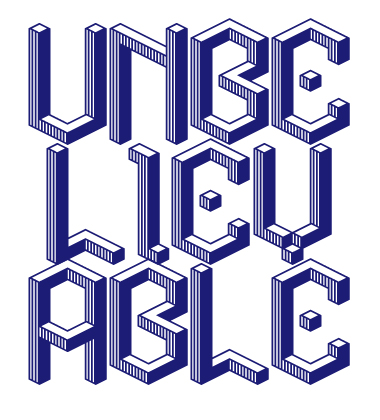
This is my homage to the late Dutch master. I tried to capture the impossible geometry, sense of space, and even the colours of his works. You can see and download the new v2 here:
I've been working on this project since 21st July. It is still not complete: capitals and other characters are missing. But I couldn't wait any longer. I was also hampered by technical issues. No download possible at the moment, lost a few hours work several times after a failed saving attempt. Thus, I've made the decision to share this work as it is, and iron out the problems later.
There will be many twists and turns on the road to Upper Case, but you have set out on a noble path. You have done well halfling.
There are many fonts I've held back so that others could share their creations. It was something I decided after hearing that some wouldn't have shared their designs after seeing mine. Throughout the process, I've played a little game of "When is someone going to come up with this?" in regards to public releases compared to my private stash. Uncannily, within the last two months, there have been about ten fontstructions by different fontstructors that similarly match what I have unreleased, ranging from the simple to the most complex. It's an interesting thing to see. Everyone's been doing great work. I'll be sharing these typefaces soon. Your design is the most unexpected I would think to find here. Shocking, really.
This sample is from IsoMatrix, fontstructed in June, 2008.
@ geneus - i was just thinking with all this escher-inspired work being released that i'm sure geneus could do a killer interpretation. i wait with baited breath :)
@djnippa: g was not easy. I had to increase the descender to accommodate it. The 8 is a different story. All I wanted to avoid the overused symmetrical version I could have created offhand. But I was not sure others would like it as much as I do.
@p2pnut: &, $ are third and fouth generation glyphs respectively. That means I deemed the previous versions unworthy to include in this first release. My favourite is the * (asterisk). The ß (eszett) also came out very nicely. It preserves the fusion of the long s and a lower case roman s.
The ø from the Danish and Norwegian alphabet gives a new dimension to the stroke.
@geneus1: Well, I don't know what to say. IsoMatrix has an apparent resemblance to my letters, especially the upper case. I have already finished the sketches of those too, and
I'm not going to change them just for the sake to be different. But the full history of this Escher-inspired design goes back to June 2003. Shortly after I saw the book "The Magic of M.C. Escher", the Belvedere, Man with Cuboid, and Waterfall in it, I started to do some drawings of 3D letterforms using cubes as pixels. But I made only a few letters back then. A couple of years later I started to work on this project again, and developed the optimal x-height to avoid the common hexagonal look of the rounded letters. I used Illustrator and simple colours for the different sides, but I could not convert the glyphs to B&W to make them acceptable to the font editor (TypeTool). The advent of FS suddenly opened up new possibilities. It was actually one of your works, Bevelicious, (and Bevel by minimum) that inspired me the most showing what FS was really capable of in the right hands. Had you published IsoMatrix before, it might have discouraged me to work on a similar project. It also might have had a strong influence on my work, too strong perhaps. On the other hand I should thank you for the inspiration of Bevelicious, and you should thank minimum for sharing Bevel with the FS community. Personally, I don't think that having a completed work in the drawer is of much use. It is as if it never existed. And consider the ephemeral lifespan of the average font. So, publish or perish, as the saying goes.
I wonder, why was my design so unexpected to you. The core idea of this paradox geometry preceded Escher, who saw it in earlier works. But he took it to artistic level by populating those dimensions with buildings, human figures and everyday objects. He also greatly improved the concept of using the laws of perspective in such a peculiar way so as to cheat the human eye. Likewise, the typographic idea has been circulating around for quite a while in logotype, pixel art, or even Flash
designs. It's not a surprise, that several people come up with the same idea, since we humans use the same hardware, our brain, our neural networks to create. The near simultaneity of same ideas could be explained by the zillions of visual stimuli raining on us every second, shaping our thoughts, capturing our imagination. Every historical period has a set of stimuli, call it style, trend or fashion. There is a lot of cross-pollination of ideas going on eversince the Web opened the floodgates of information. So it is not a question of IF, but WHEN an idea is to resurface again.
Yes, the size limit. Splitting one huge FontStruction into two or more smaller ones is a temporary work-around. We have plans to implement copy&paste between FontStructions, and we might be able to increase the size limit handled by the font generator. So there is hope to see Hommage a Escher in its full glory at some point. :-)
I have one little comment on the design: the horizontal bar of the t - did you try making it go up instead of down?
I can only imagine the patience involved, so I hope you take my humble suggestion from a very friendly perspective, Mr Baggins:
If the middle bars (I mean the downside of the p's belly, the upside of the b's belly or the inner loop of the e, etc) would actually touch the main bar, then the form would truly be an impossible 3d figure.